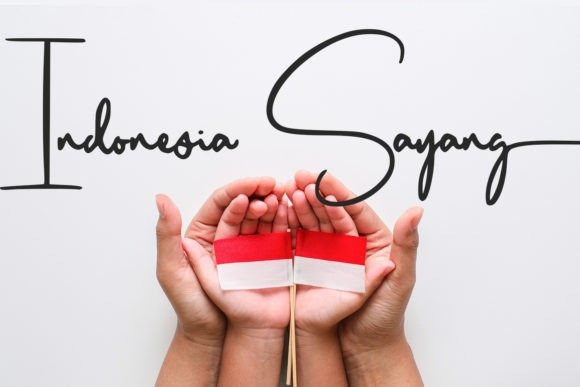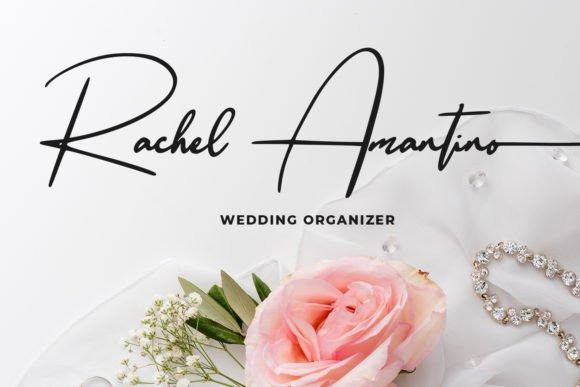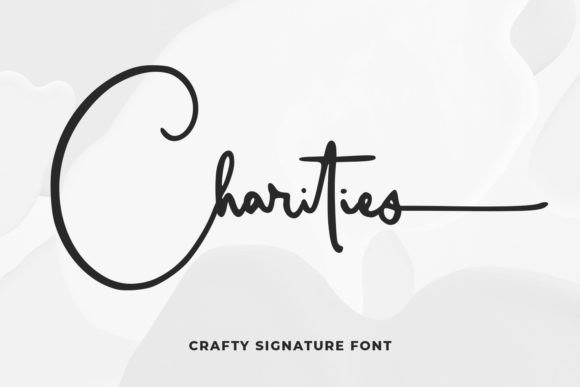
Charities Handwriting Font
Charities Handwriting Font is great for branding, t-shirt designs, tags, tote bag designs, cards, banners, social media, and more.